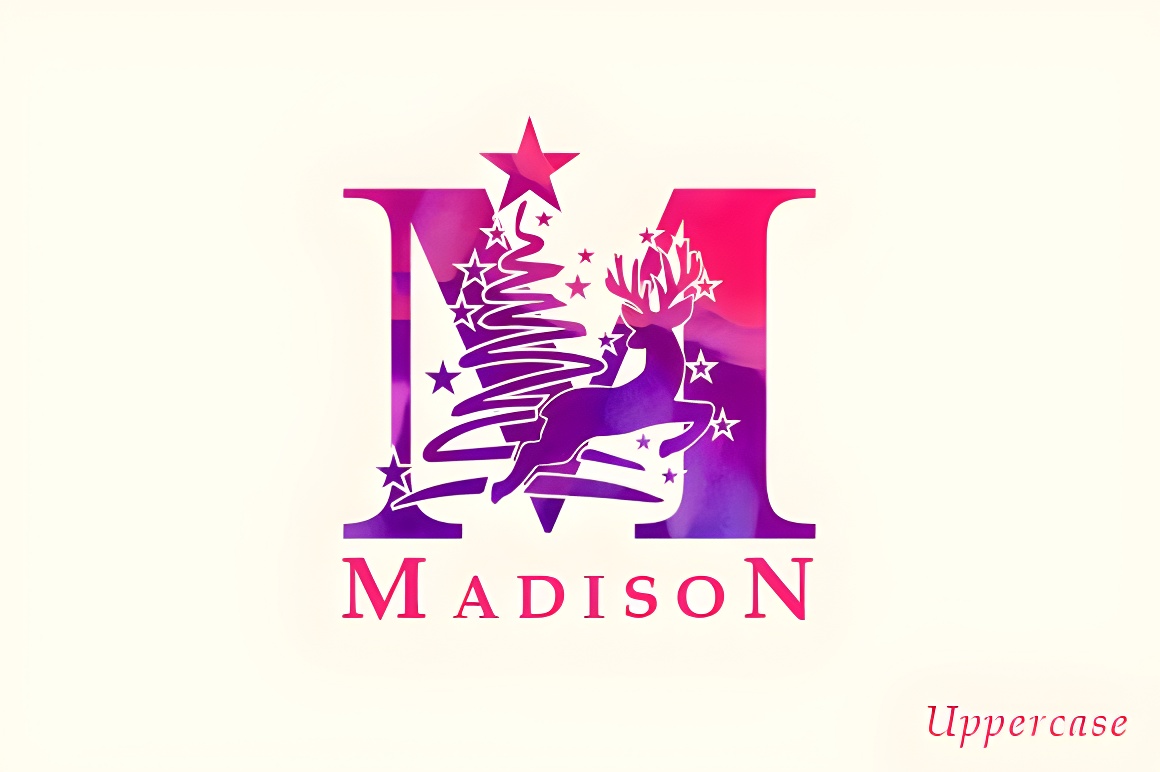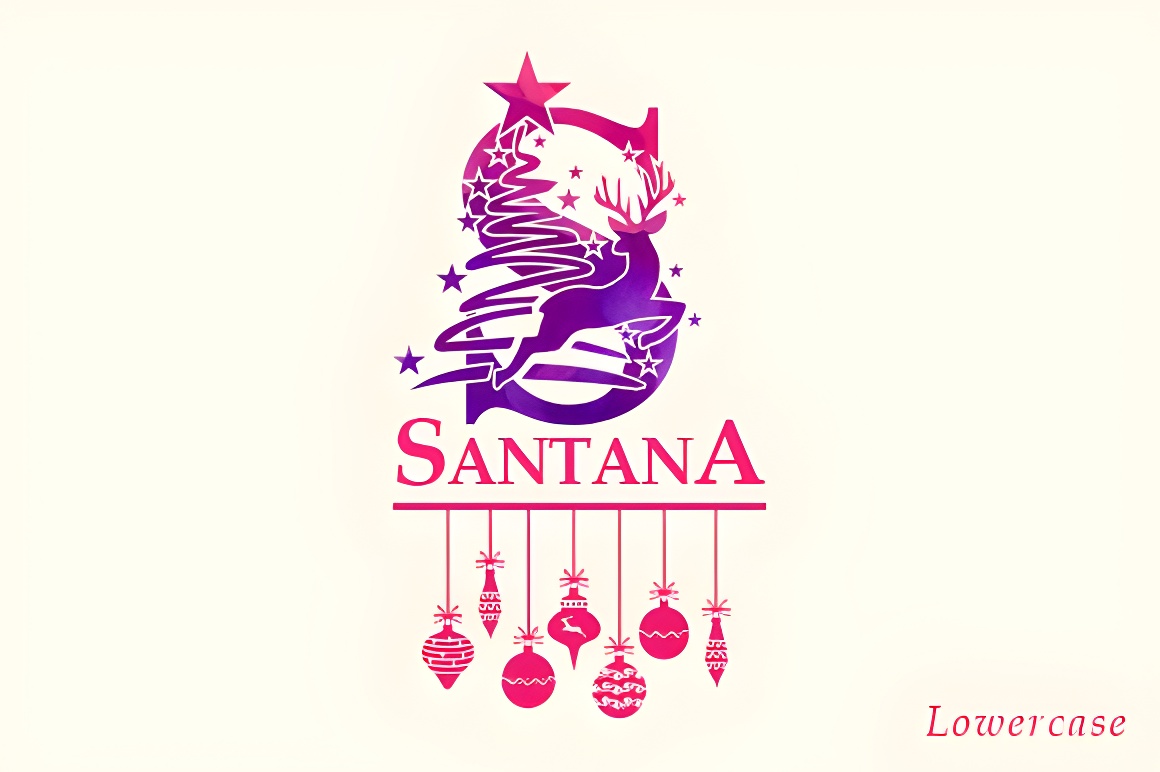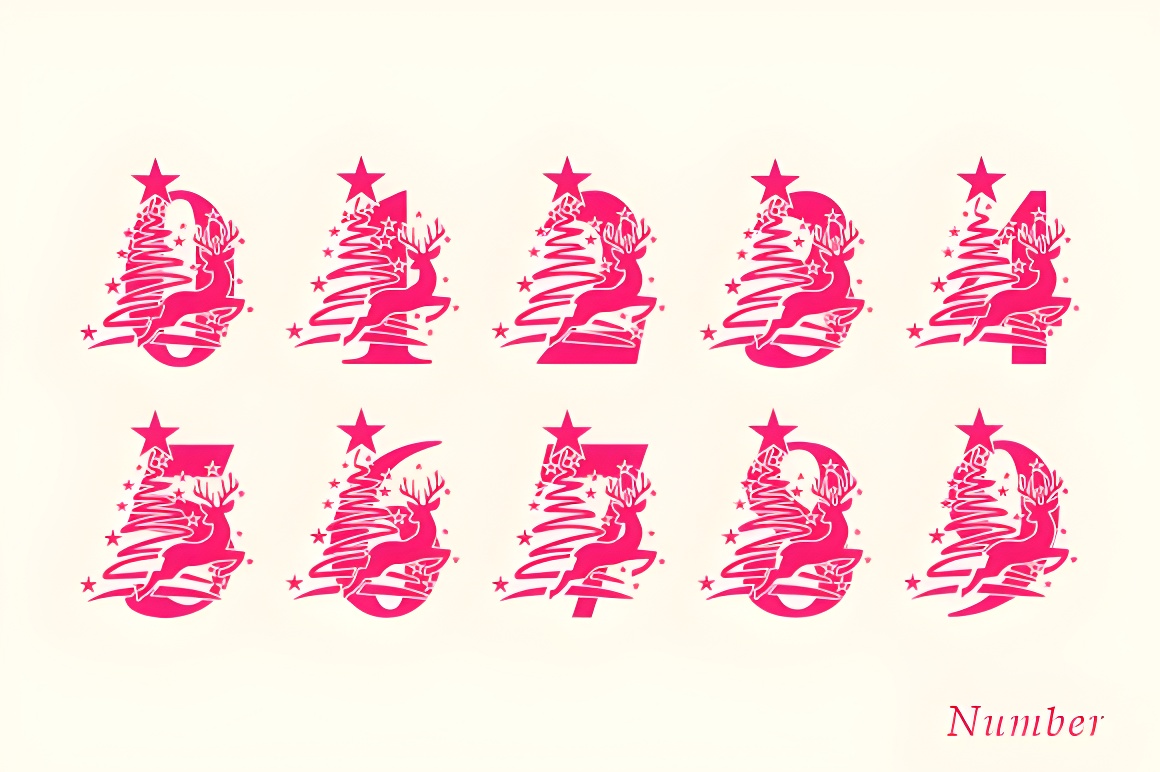
Reindeer Christmas Monogram Font - Decorative Holiday Typeface
Festive decorative font with handcrafted charm, perfect for Christmas designs, holiday greeting cards, social media posts, and monogrammed stationery. Elevate your seasonal projects!